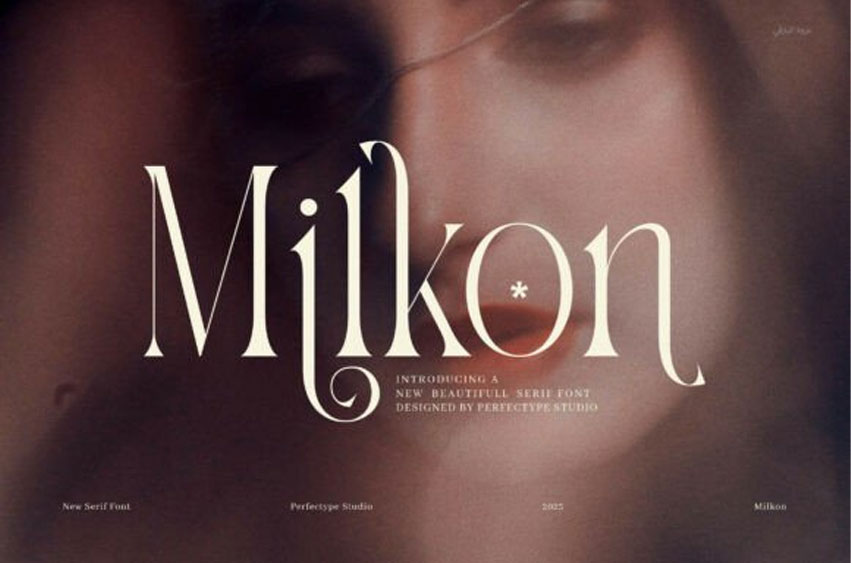
Milkon Font
Milkon Font is a modern, classy serif typeface that blends elegance with versatility. Designed with refined curves, clear lines, and thoughtful spacing, it brings a luxurious yet clean look to any design project.
This font is not only stylish—it’s also functional. Because it features smart ligatures, Milkon adds smooth connections between characters. These subtle ligatures enhance visual flow and give your text a custom, handcrafted feel without making it hard to read.